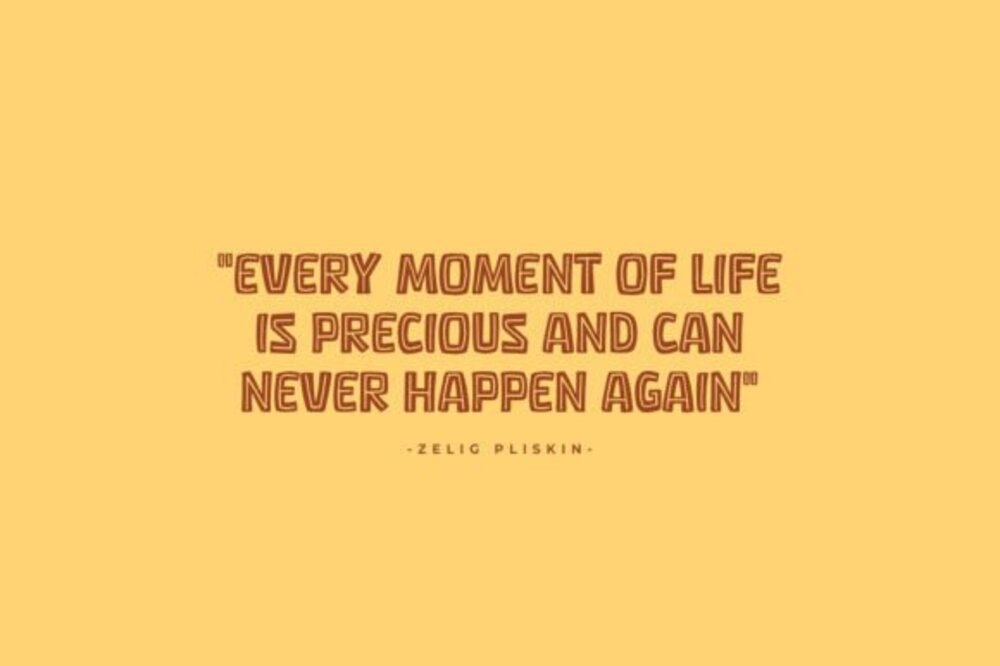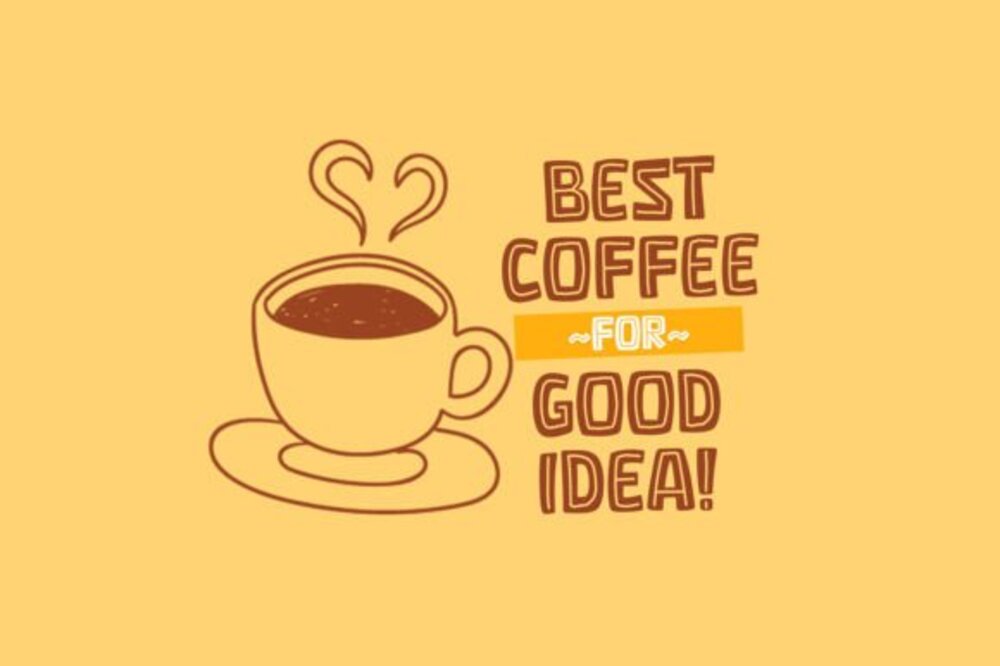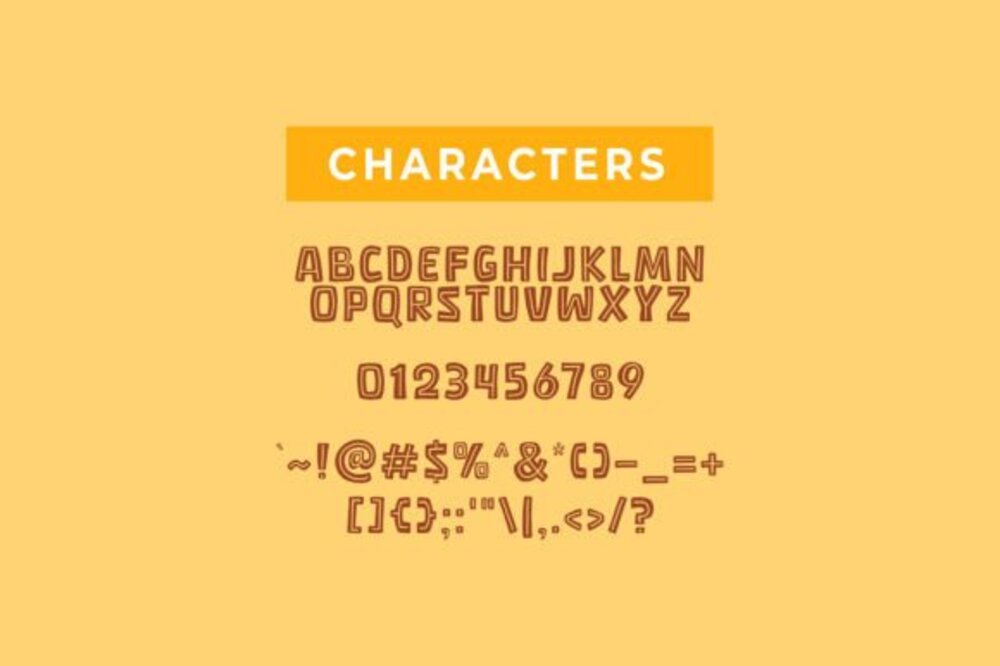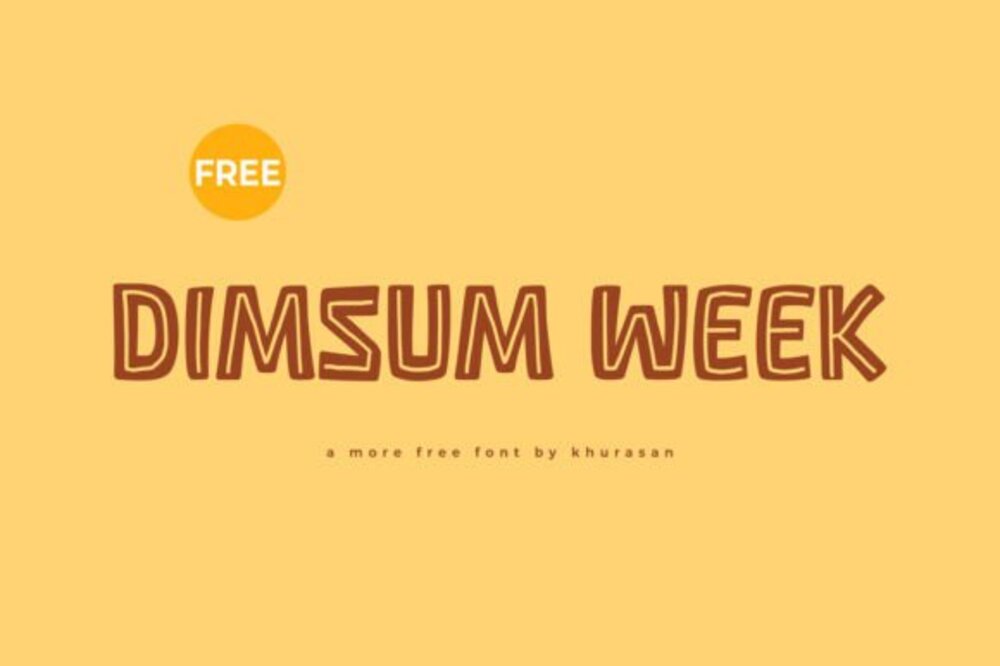
Dimsum Week Font
Dimsum Week Font is a playful and inviting typeface that captures the vibrant energy of a bustling dim sum restaurant. Its delicate curves and charming flourishes evoke the delicate flavors and textures of traditional dim sum, making it perfect for menus, restaurant branding, and projects that celebrate Asian cuisine. Whether you’re designing a vibrant poster or creating elegant invitations, Dimsum Week adds a touch of authentic charm to any design.